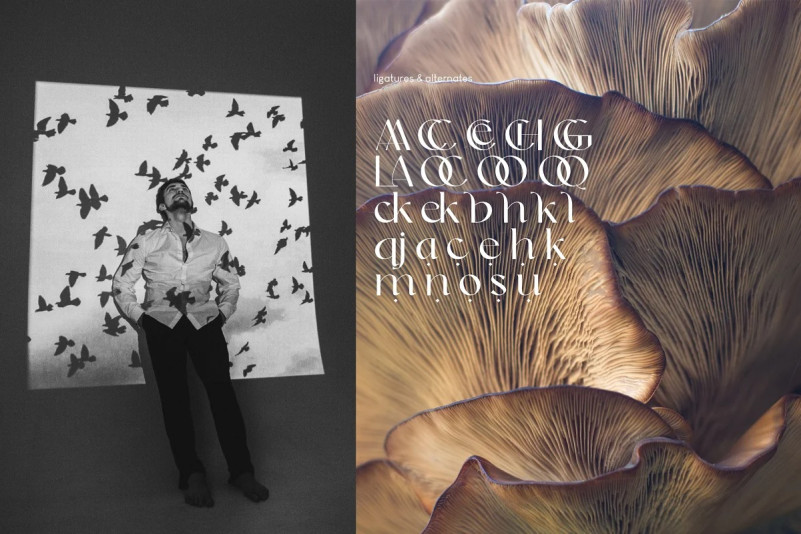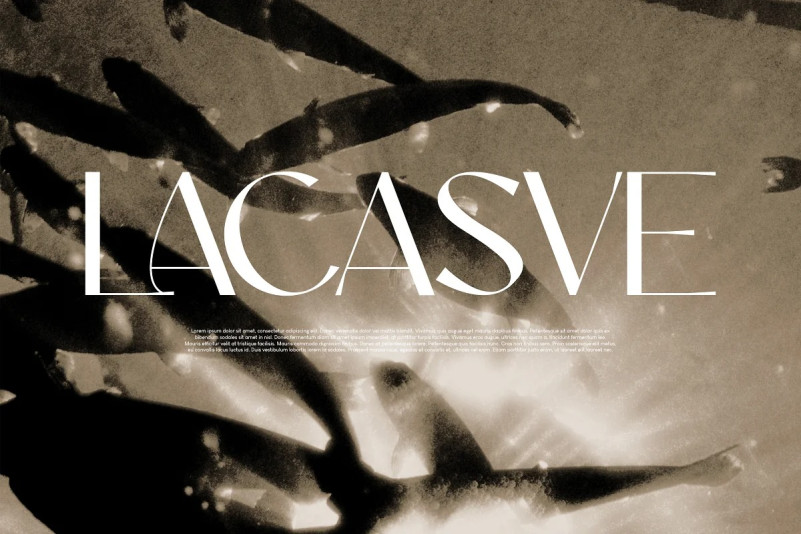
Dolce & Amyara Font
Introducing Dolce & Amyara classy modern serif font family that drew inspiration from stylish, modern, and classic at the same time. It looks lovely on logos, branding, invitations, marketing materials, wedding designs, social media posts, and every other design which needs a customized touch.